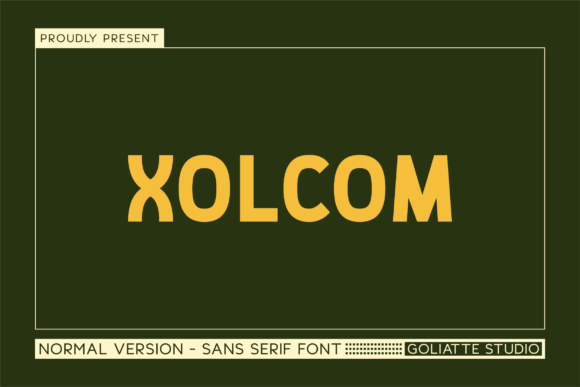
Introducing Xolcom – A Modern Sans Serif Typeface
In the world of typography, fonts play a crucial role in conveying messages, expressing emotions, and creating brand identities. With the ever-evolving design landscape, it’s essential to have a font that not only stands out but also communicates professionalism and authority. This is where Xolcom comes in – a bold, all-caps sans serif font designed specifically for the modern designer.
The Design Philosophy Behind Xolcom
Xolcom’s design is rooted in the principles of modernism and minimalism. Its clean lines, sharp edges, and geometric structure make it a versatile typeface suitable for a wide range of applications. The all-caps design ensures clarity and readability, making it perfect for headlines, posters, and anywhere you need your message to stand out.
Key Features of Xolcom
- All-caps design for maximum impact and emphasis on clarity
- Modern, minimalist style with a focus on readability and aesthetics
- Bold, clean lines for a confident and professional look
- Ideal for branding, logos, packaging, and digital design
- Perfect for both large-scale headlines and smaller text blocks
The Benefits of Using Xolcom
Xolcom offers numerous benefits to designers, brands, and agencies looking to create a modern, authoritative identity. Its strong, geometric structure ensures versatility, making it suitable for various applications, from digital interfaces to high-end branding. The font’s bold and clean lines convey confidence and professionalism, making it perfect for:
- Tech companies looking to create a cutting-edge brand image
- Corporate branding that requires a sense of authority and stability
- Luxury design projects where style and readability are paramount
Why Choose Xolcom?
With the vast array of fonts available, why should you choose Xolcom? Here are a few compelling reasons:
- Uniqueness: Xolcom’s bold and modern design sets it apart from other sans serif fonts
- Versatility: Suitable for various applications, from digital design to print materials
- Readability: The all-caps design and clean lines ensure clarity and readability
- Professionalism: Conveys confidence and authority, making it perfect for brands and agencies
How to Use Xolcom Effectively
To get the most out of Xolcom, here are some tips on how to use it effectively:
- Headlines and titles: Use Xolcom for headlines and titles to create a strong impact
- Branding and logos: Utilize Xolcom for branding and logos to convey professionalism and authority
- Digital design: Use Xolcom for digital interfaces, such as websites and mobile apps, to create a modern and cutting-edge look
- Print materials: Xolcom is perfect for print materials, such as brochures, posters, and business cards
In conclusion, Xolcom is a modern sans serif typeface that offers a unique blend of style, readability, and professionalism. Its bold and clean lines make it perfect for brands, agencies, and designers looking to create a modern, authoritative identity. With its versatility and wide range of applications, Xolcom is sure to make a statement in the world of typography.
Stand Out with Xolcom
Don’t settle for ordinary fonts that fail to make an impact. Stand out with Xolcom – a typeface built to make an impression. Whether you’re designing a logo, website, or print material, Xolcom is the perfect choice for modern designers who want to create a lasting impression.
Xolcom Font Specifications
| Font Family | Xolcom |
|---|---|
| Font Style | Bold, All-Caps Sans Serif |
| Font Use | Headlines, Titles, Branding, Logos, Digital Design, Print Materials |